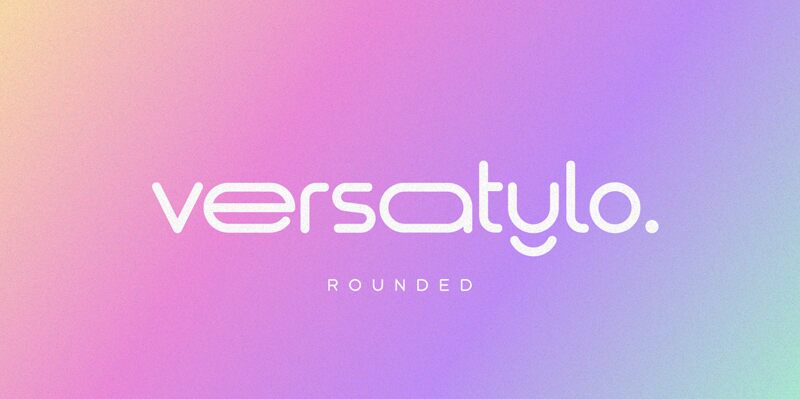
Versatylo Rounded emerges as a unique creation by Variatype, blending the simplicity of sans serif with a touch of modernity and friendliness. Characterized by its semi-light weight and semi-expanded width, this font exudes an airy yet substantial presence on the page. The rounded terminals lend a soft, approachable quality that's pleasing to the eye, making it an excellent choice for designs that aim to be both inviting and clear.
The font's gentle curves and open structure enhance readability, ensuring that it stands out in both print and digital media without overwhelming the content. Versatylo Rounded is particularly well-suited for branding projects, user interfaces, and creative displays where clarity meets subtlety. Its versatile nature allows it to adapt seamlessly across various contexts – from tech startups to lifestyle magazines – proving its potential as a go-to typeface for designers seeking both style and functionality.